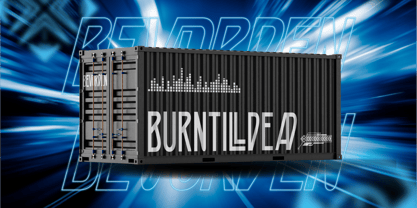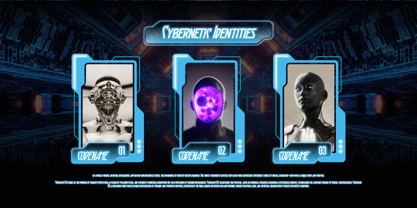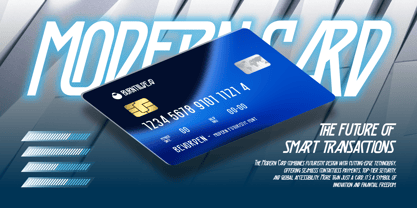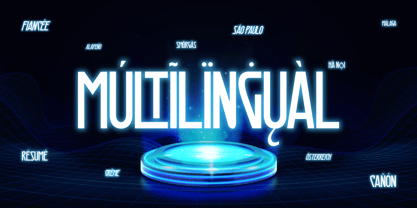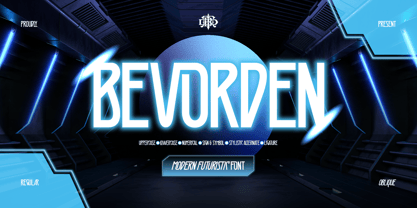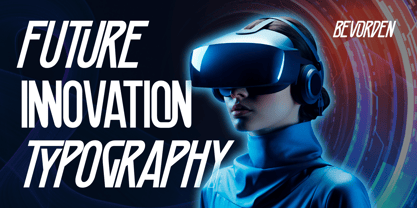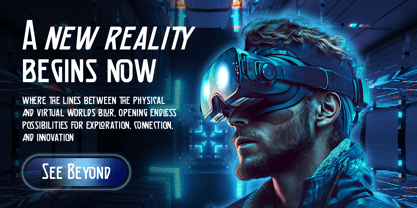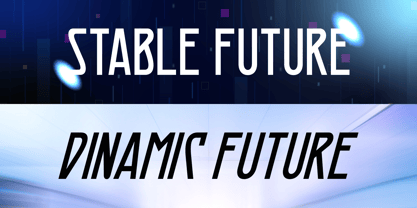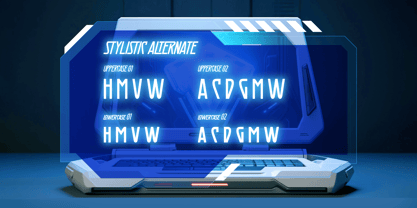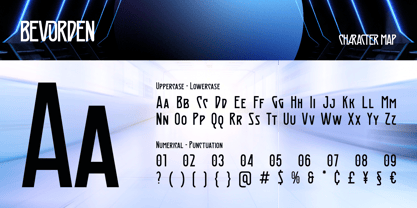
Bevorden
by Burntilldead
The Bevorden Font Family was designed by Eric Kurniawan and published by Burntilldead. Bevorden contains 2 styles and family package options.
Introducing Bevorden, a modern futuristic font designed for visionaries, innovators, and dreamers. This bold display font carries a sleek, techy, and immersive personality—perfect for virtual reality, sci-fi themes, future-tech concepts, games, and cyberpunk-inspired films.
Some letters feature unique cuts and subtle distortions that enhance the digital and virtual vibe. Despite its experimental look, Bevorden remains clean, readable, and eye-catching thanks to its distinctive geometric style.
Bevorden brings a strong digital-age energy to your design. Whether it’s for branding, headlines, logos, sci-fi movie posters, game covers, future-focused campaigns, startup presentations, or AR/VR UI design, this font helps your work stand out and feel ahead of its time.